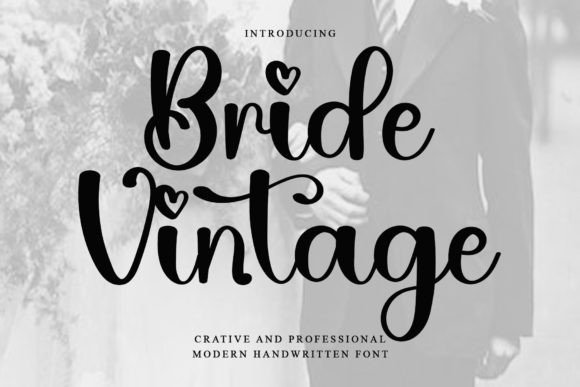
Bride Vintage Font: Elevate Your Designs with Elegance and Sophistication
The world of typography is vast and diverse, with countless fonts to choose from, each with its unique character and charm. However, when it comes to creating a truly unforgettable impression, few fonts can match the elegance and sophistication of Bride Vintage Font. This exquisite handwritten font is masterfully designed to become a true favorite among designers, maintaining its classy calligraphic influences while feeling contemporary and fresh.
What Makes Bride Vintage Font So Special?
- Handwritten with love: Bride Vintage Font is a carefully crafted handwritten font, imbuing it with a personal touch that’s hard to replicate with machine-generated fonts.
- Classy calligraphic influences: The font’s calligraphic roots are evident in its flowing lines and elegant strokes, perfect for adding a touch of sophistication to any design.
- Contemporary and fresh: Despite its classic influences, Bride Vintage Font feels remarkably modern and fresh, making it suitable for a wide range of design applications.
Perfect for a Variety of Design Applications
Bride Vintage Font is an incredibly versatile font that can be used in various design projects, including:
- Wedding designs: As its name suggests, Bride Vintage Font is perfect for wedding-related designs, such as invitations, save-the-date cards, and ceremony programs.
- Branding and logos: The font’s unique character makes it an excellent choice for branding and logo design, helping businesses stand out from the competition.
- Packaging and labels: Add a touch of elegance to your product packaging and labels with Bride Vintage Font.
- Advertising and marketing: Use the font to create eye-catching advertisements, brochures, and marketing materials that exude sophistication and refinement.
Tips for Using Bride Vintage Font Effectively
To get the most out of Bride Vintage Font, keep the following typography tips in mind:
- Use it sparingly: Due to its elegant and sophisticated nature, Bride Vintage Font works best when used sparingly. Use it for headings, titles, or key phrases to create a lasting impression.
- Pair it with complementary fonts: Combine Bride Vintage Font with complementary fonts to create visual interest and add depth to your designs.
- Experiment with colors and textures: Don’t be afraid to experiment with different colors and textures to add an extra layer of creativity to your designs.
Finding Inspiration with Bride Vintage Font
When working with Bride Vintage Font, it’s essential to find inspiration to bring out the best in your designs. Here are some ideas to get you started:
- Explore vintage designs: Look to vintage designs, such as antique posters, elegant invitations, and classic typography, to gain a deeper understanding of the font’s roots.
- Draw from nature: Take inspiration from nature’s elegance, such as flowers, leaves, and water, to add an organic touch to your designs.
- Keep it simple: Don’t overcomplicate your designs. Sometimes, the simplest and most elegant solutions are the most effective.
In conclusion, Bride Vintage Font is a truly exceptional font that can elevate your designs to new heights. Its unique blend of classy calligraphic influences and contemporary freshness makes it perfect for a wide range of design applications. By following the tips outlined above and finding inspiration in the world around you, you’ll be well on your way to creating stunning designs that leave a lasting impression.